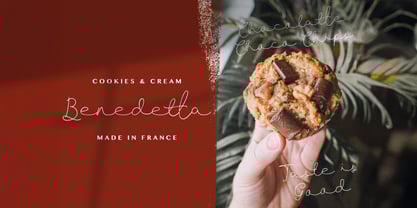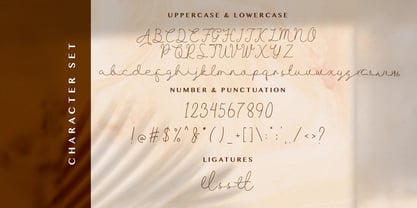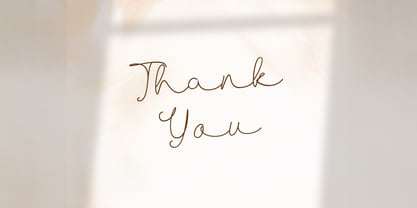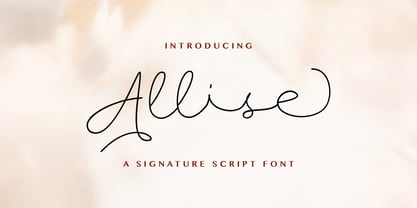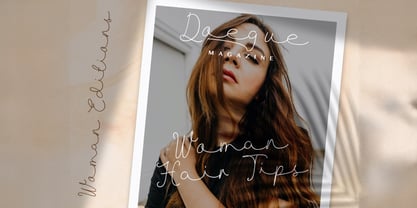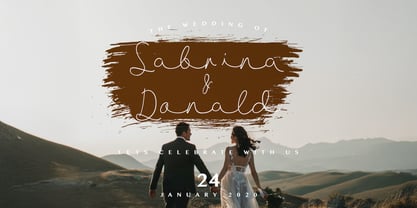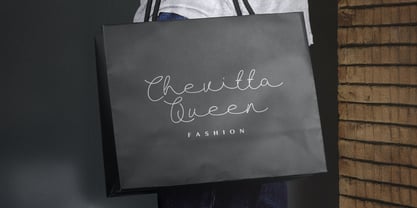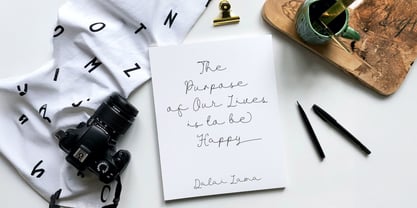
La familia tipográfica Allise fue diseñada por Virgiawan Listanto y publicada por Stringlabs Creative Studio. Allise contiene 1 estilos.
Allise is a sophisticated and stylish signature script font that captures the essence of elegant, handwritten lettering. With its smooth, flowing strokes and graceful curves, this font evokes a sense of personal charm and luxury, making it perfect for creating high-end branding.
Allise